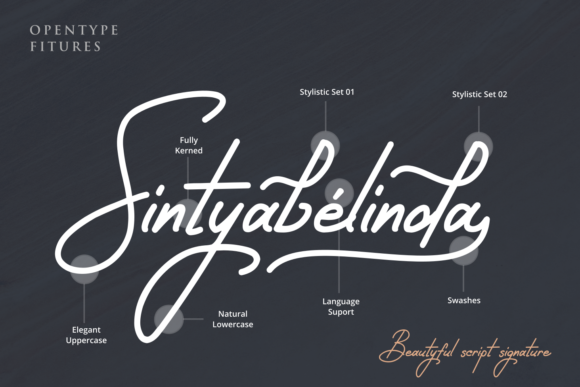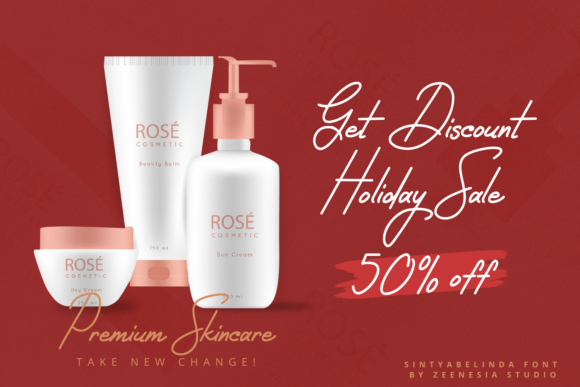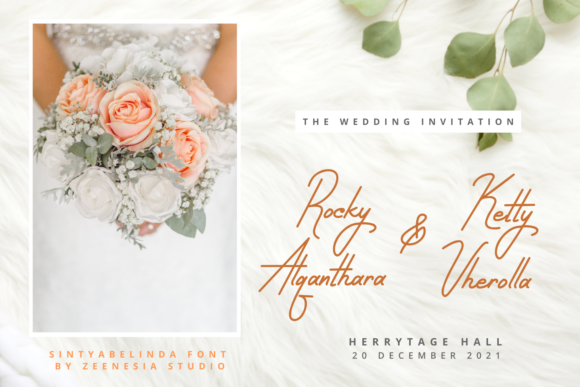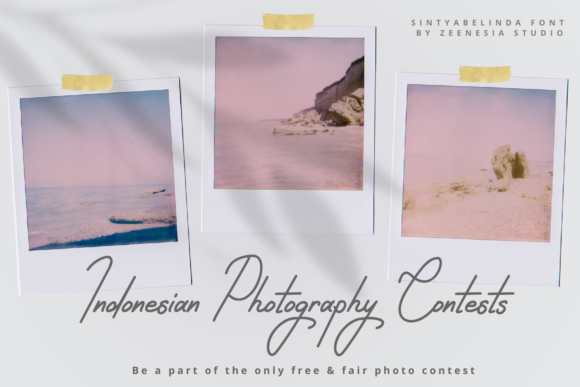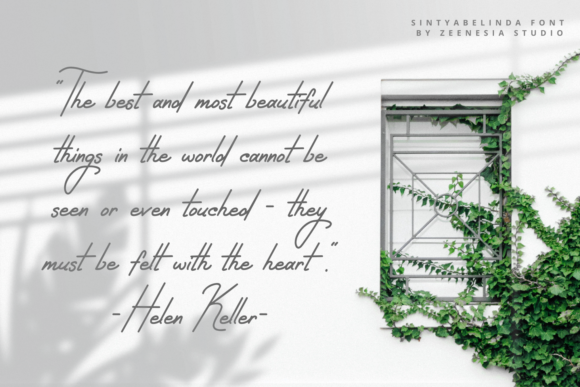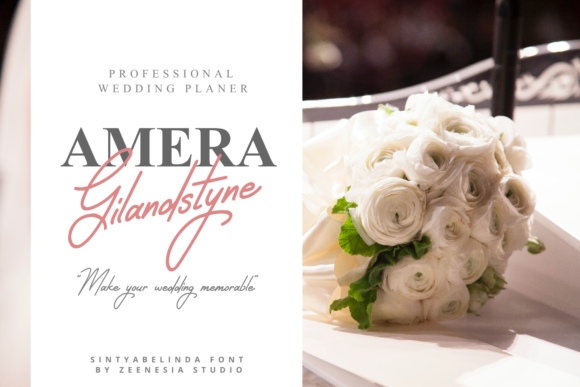
Introduction to Sintyabelinda Font
Sintyabelinda is a modern and elegant handwritten font.
Use it to make your ideas even more realistic and create spectacular designs This font is PUA encoded which means you can access all of the glyphs and swashes with ease.
Key Features of Sintyabelinda Font
Why Choose Sintyabelinda Font?
Sintyabelinda Font offers exceptional quality and versatility, making it a valuable addition to your design toolkit. Whether you’re creating for personal projects or commercial use, Sintyabelinda Font delivers professional results.